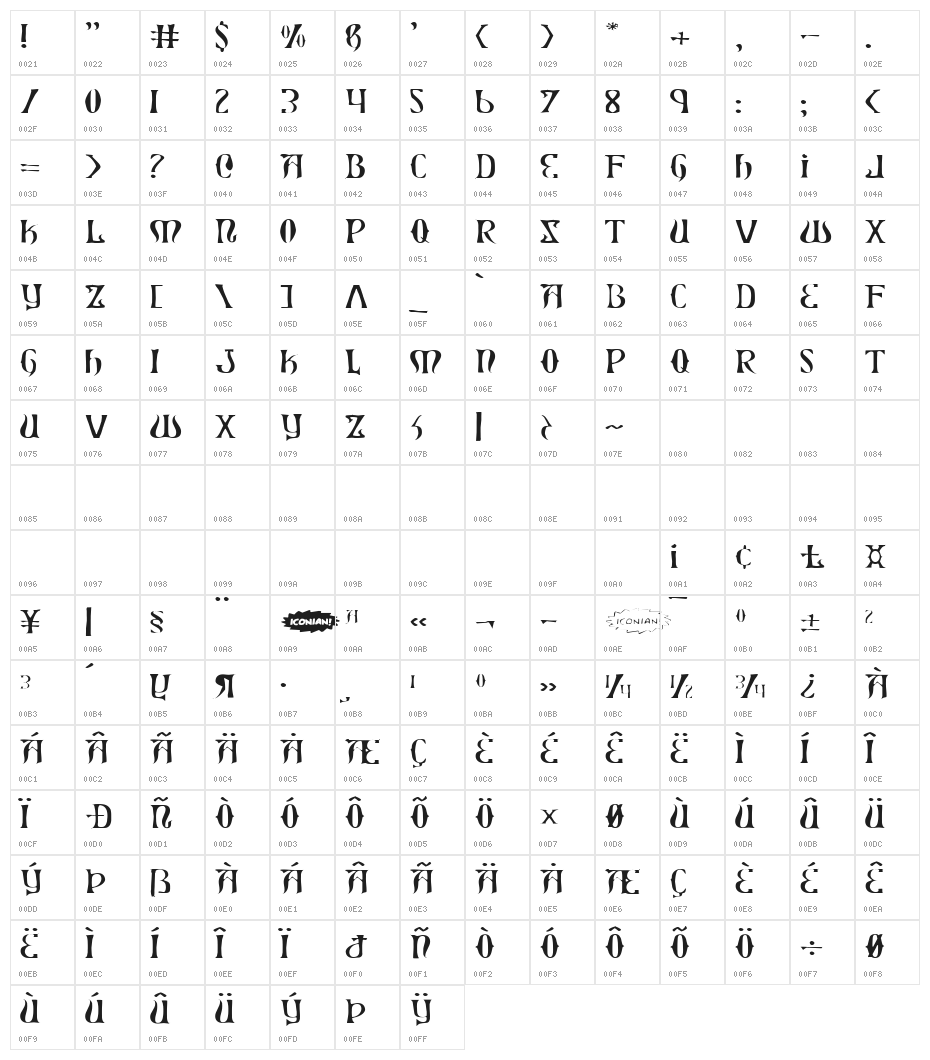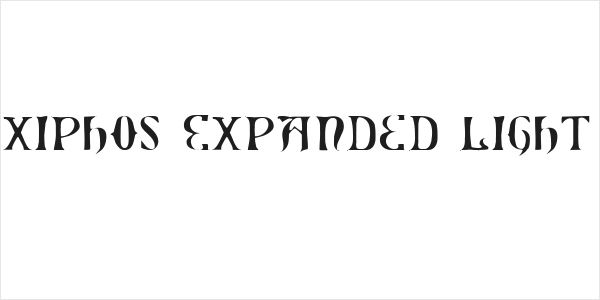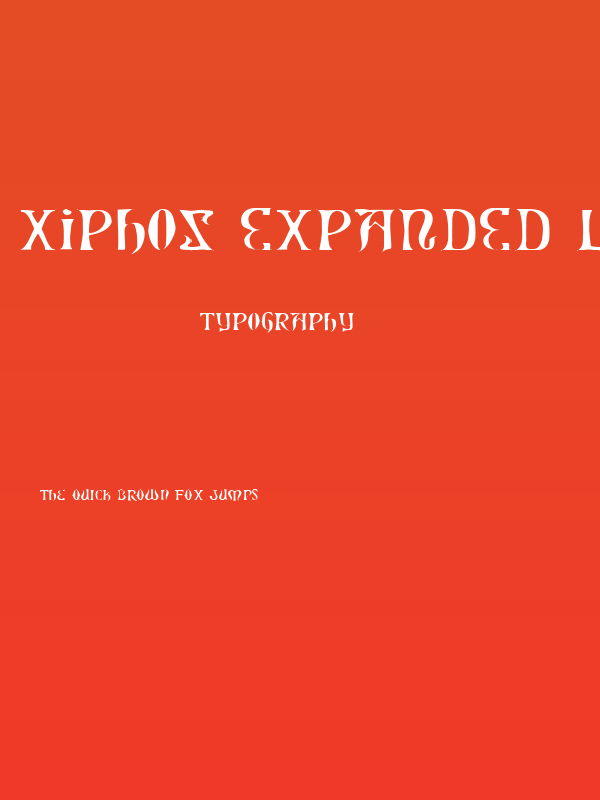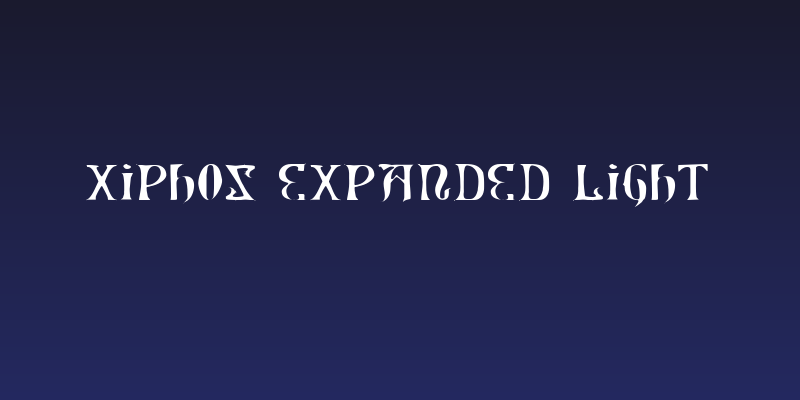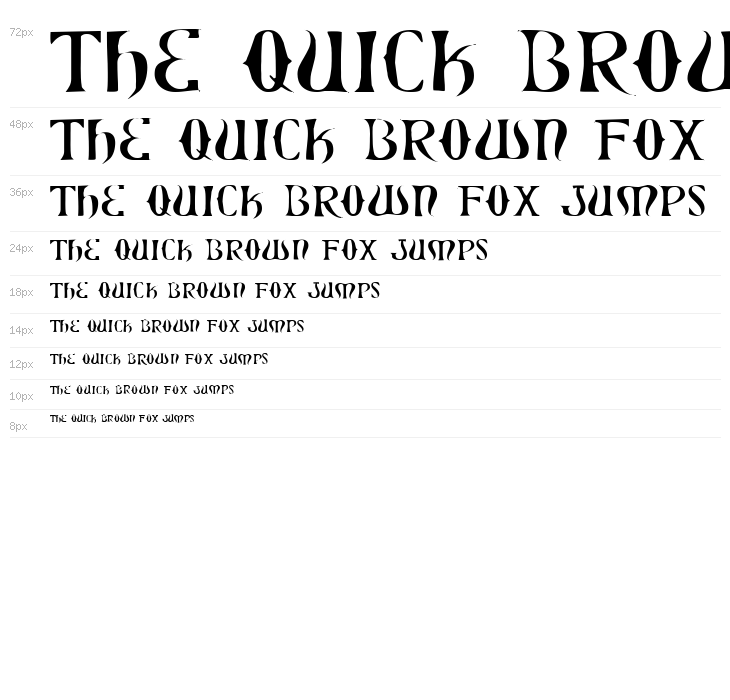
Xiphos Expanded Light Font
Xiphos Expanded Light Description
This font features a bold and striking design with a distinct medieval flair. The characters are crafted with sharp, angular edges and dramatic curves, creating a sense of movement and energy. The uppercase letters are particularly elaborate, with intricate details that give them a unique and artistic appearance. The lowercase letters maintain the same stylistic elements, ensuring consistency throughout the typeface. Numbers and special characters are designed with the same attention to detail, making them stand out. The overall look is both decorative and functional, suitable for projects that require a touch of historical or fantasy-inspired aesthetics.
| Overall Style | Medieval, Decorative |
| Proposed Projects | Ideal for fantasy book covers, medieval-themed event posters, video game graphics, and branding for historical or fantasy-related products. |